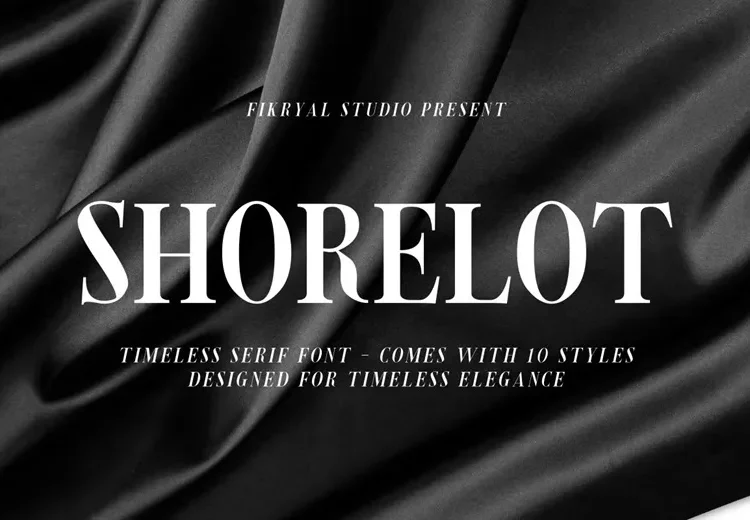
Shorelot Font Family
Shorelot is a sophisticated serif font crafted for display use, featuring a refined capital letter design that radiates modern elegance. Its timeless yet versatile style makes it a powerful tool for elevating any creative project to new heights.
This typeface is perfectly suited for applications such as logos for fragrances and beauty products, magazine layouts, stylish invitations, banners, advertisements, and social media posts. Its classic yet contemporary aesthetic also makes it an excellent choice for the fashion industry, adding a touch of luxury to any design.
Achieve a polished and high-end look with Shorelot, a font designed to captivate and inspire.